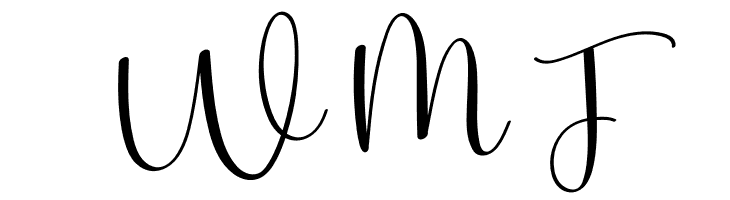
Massali Font
Muhammad Romzul Khoir
A playful handwritten font with fluid, slender letterforms and a whimsical style.
Cartoon cookies Tilted Font
Font by Kong Font
A bold, cartoonish font with a playful and dynamic style.
Spicy Hamburger Font
Font by Priogi Rahayu
A playful, modern handwritten font with smooth curves and a lively appearance.
Silhouette Phantom Font